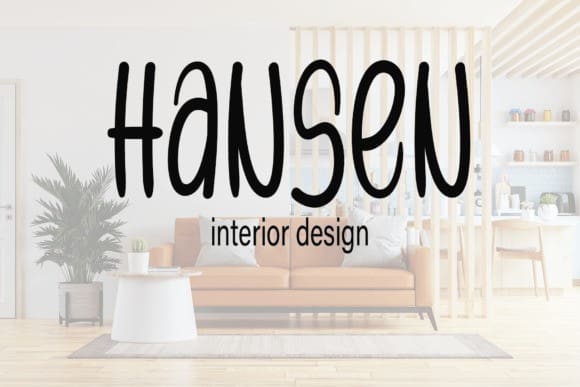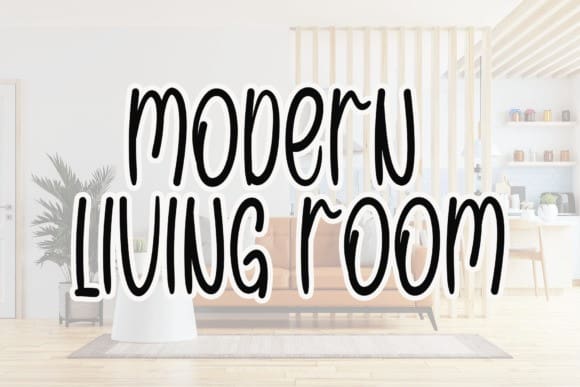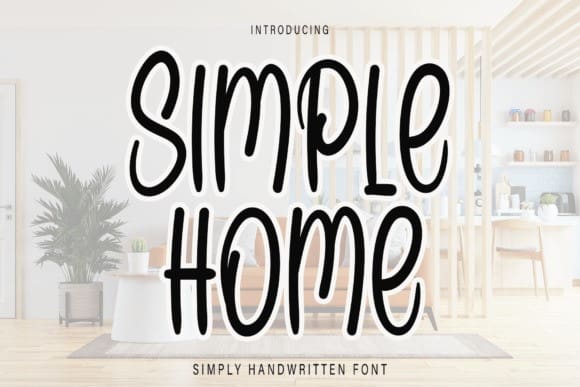
Simple Home Font
Simple Home Font is a sweet and friendly handwritten font. Fresh and neat, this font is ideal for writing wedding invitations, cards, or any other design that might need a fun touch!